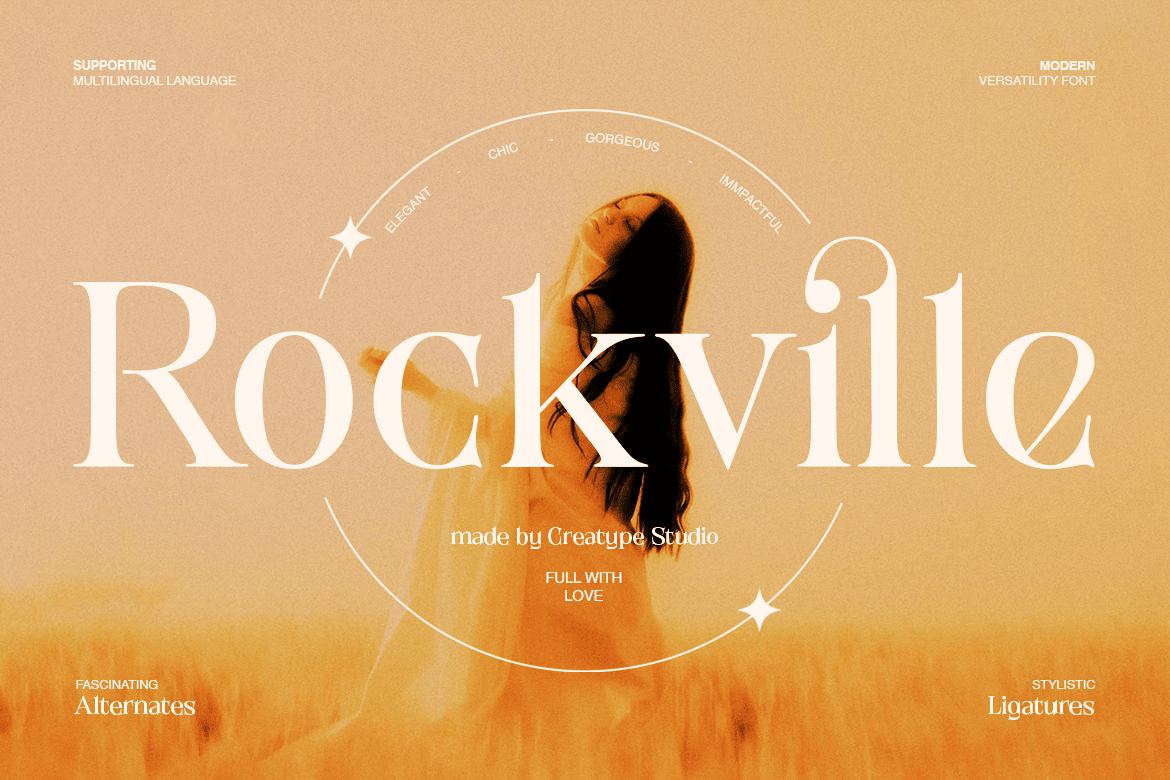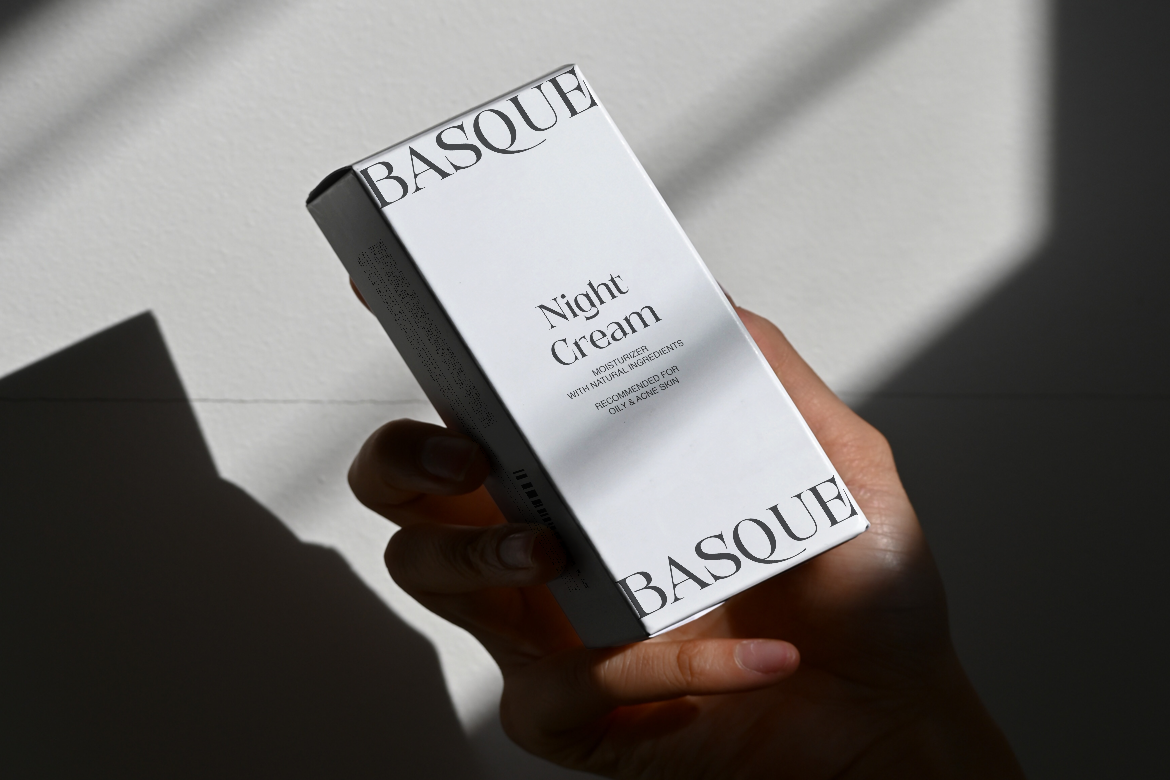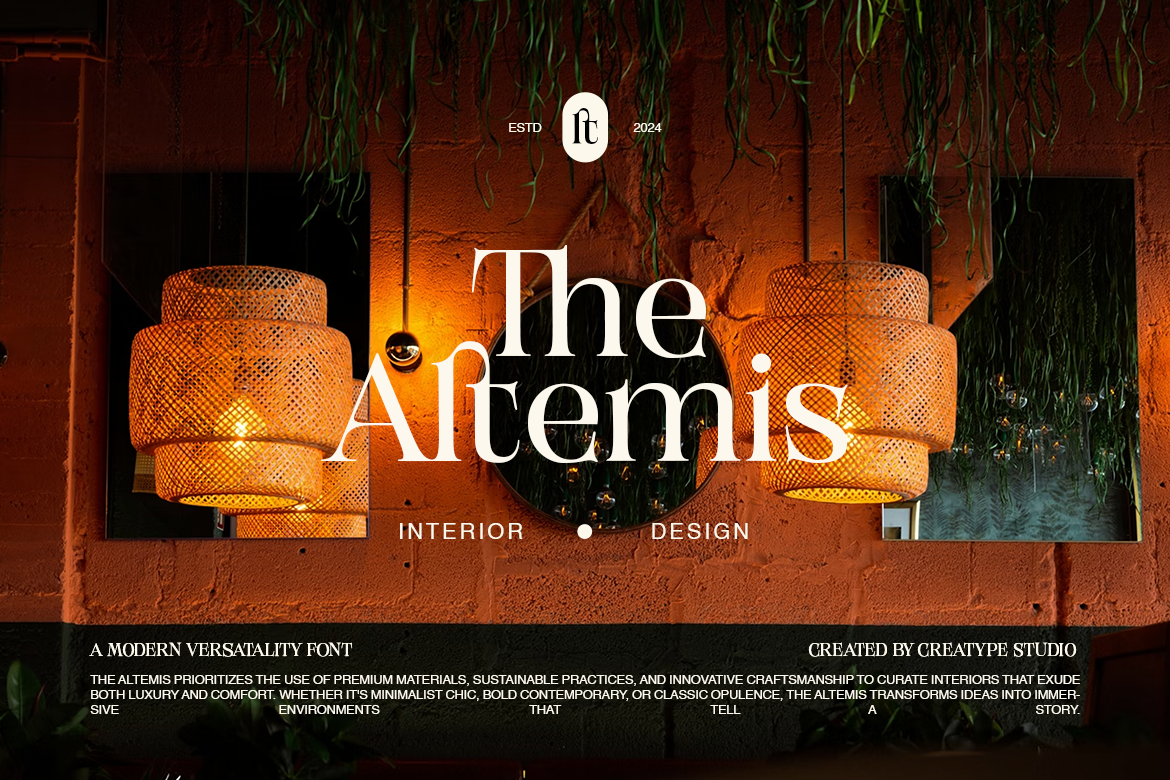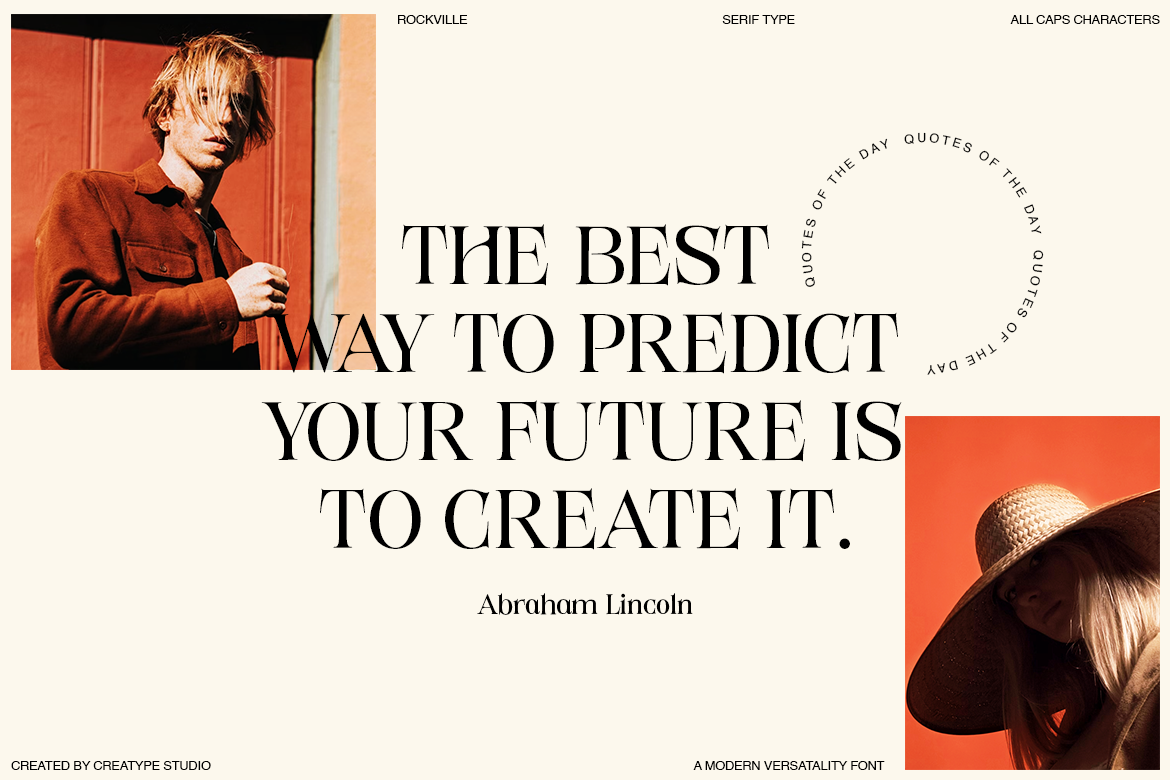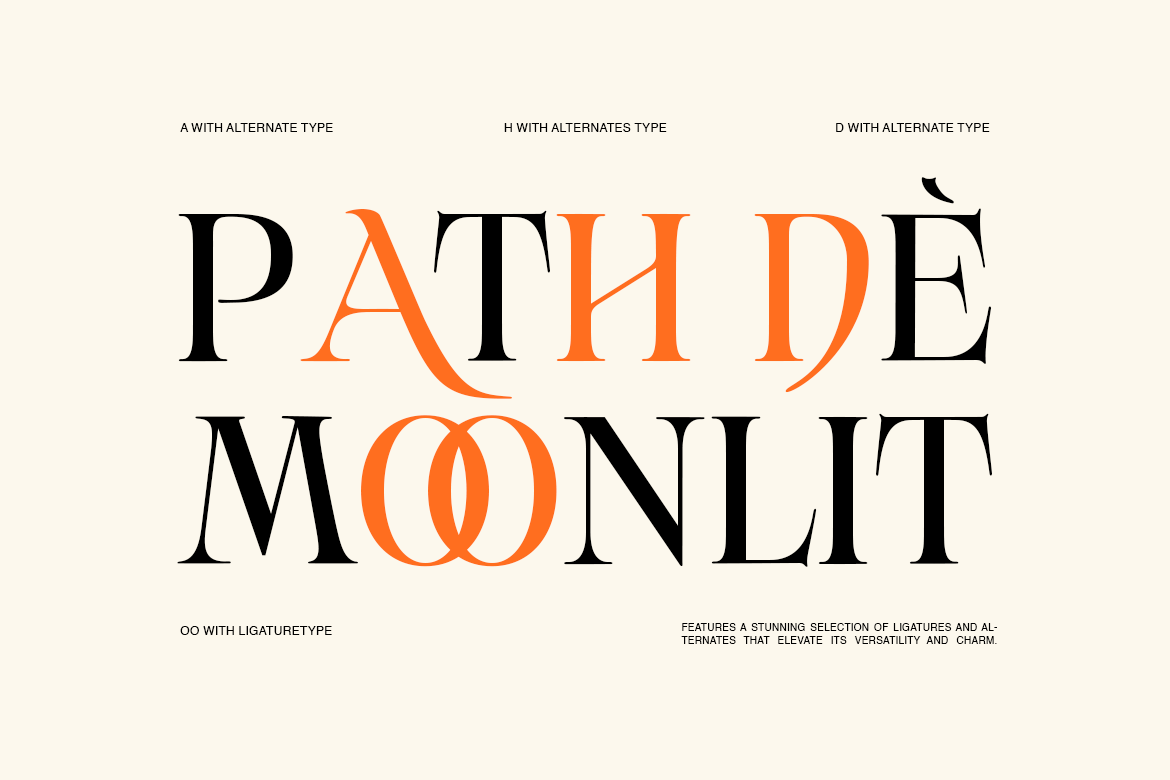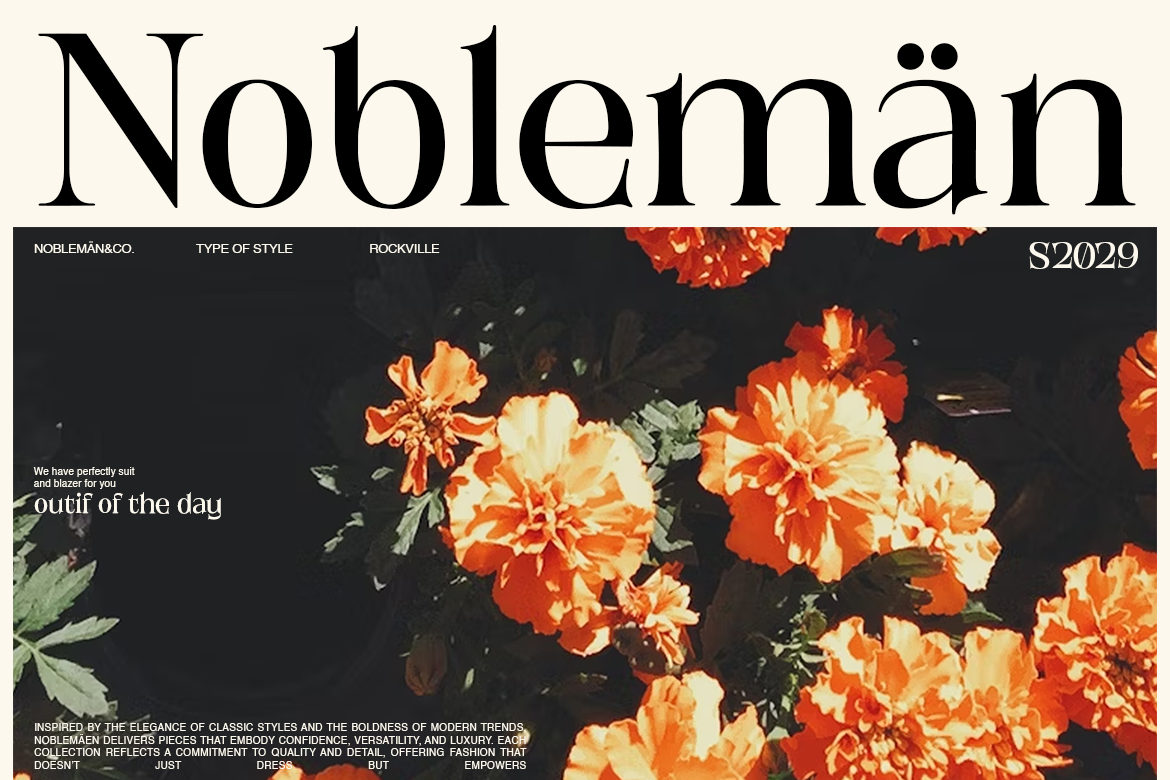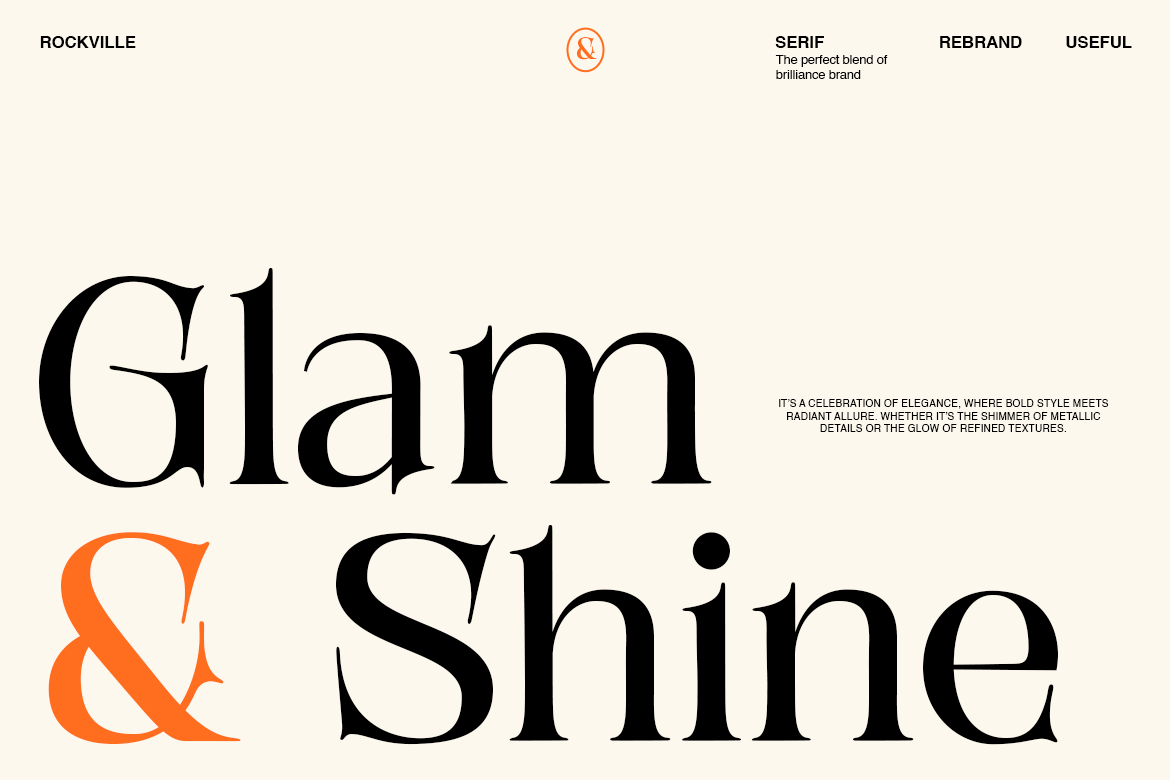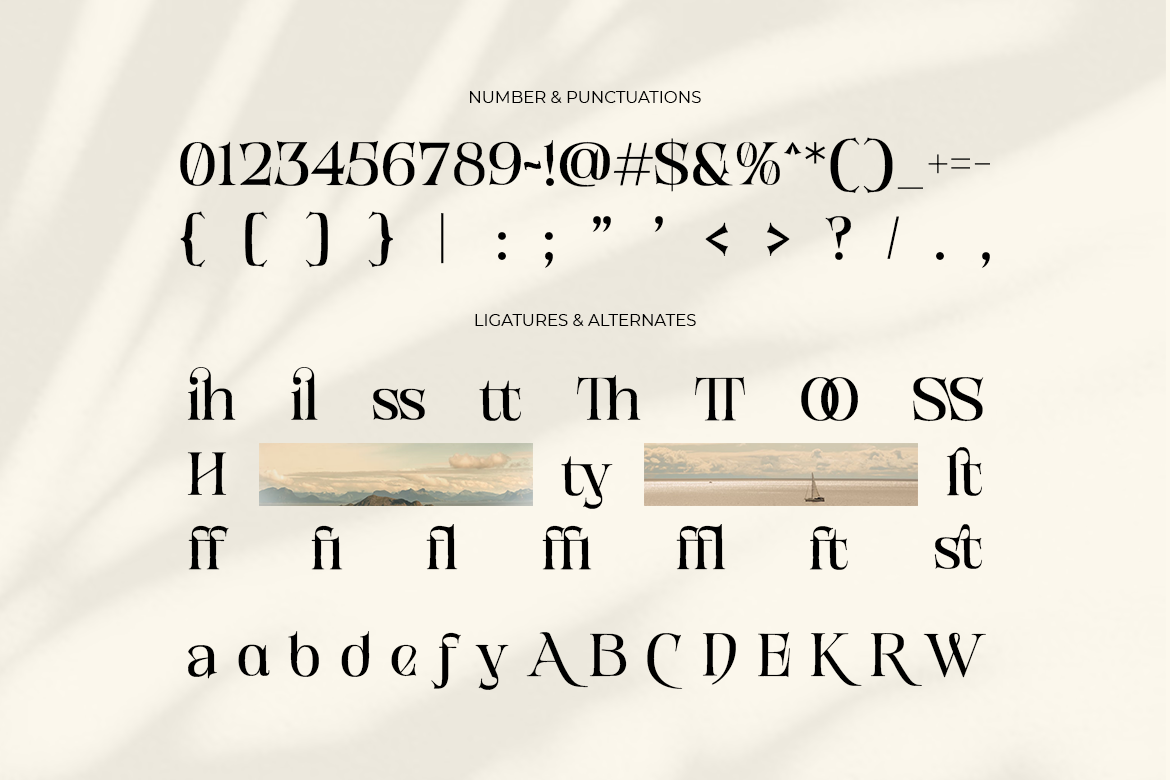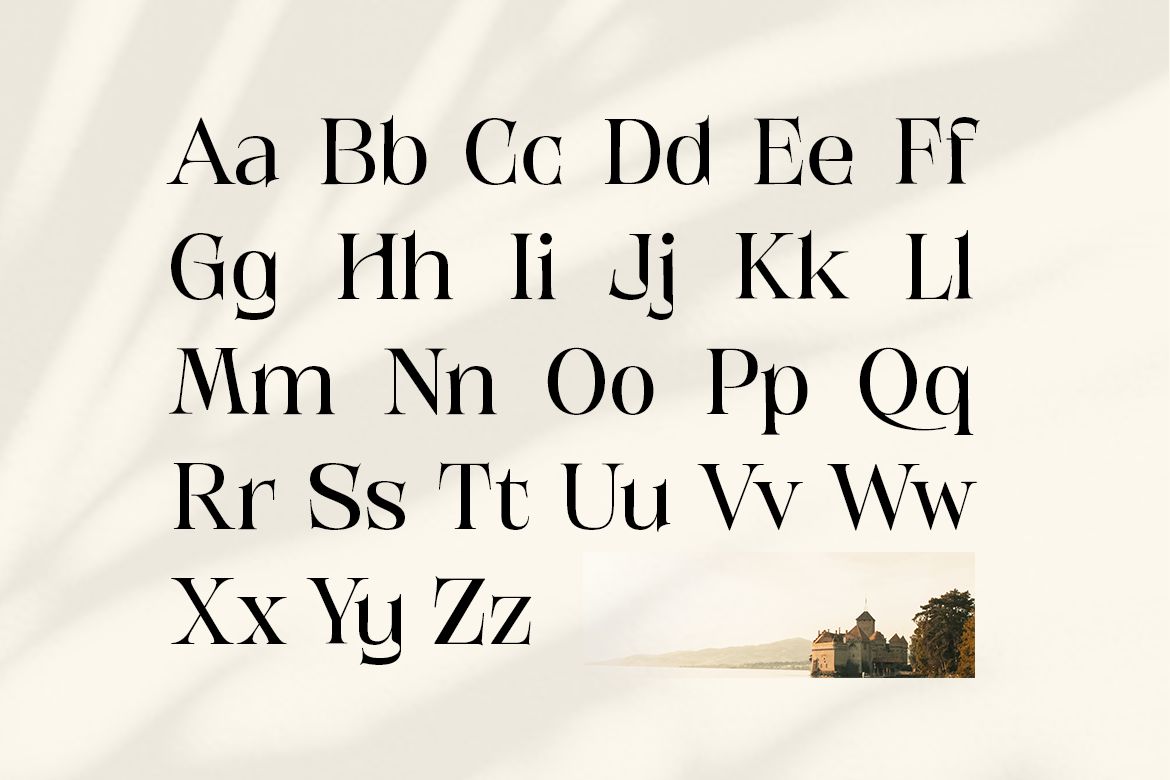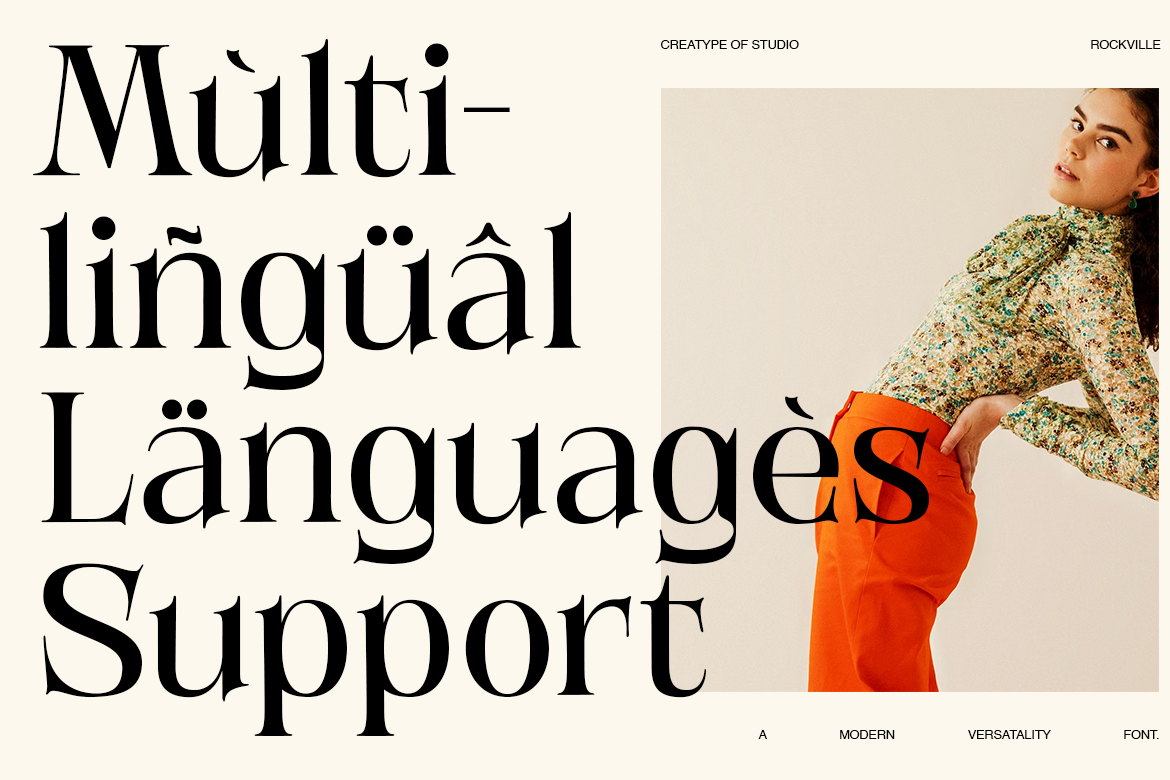
Rockville: A Sophisticated Display Serif for Modern Creatives
Rockville Versatility Serif is a captivating display serif font that merges timeless elegance with a bold, contemporary edge. Designed to make an impact, its sleek, refined details and versatile alternates ensure your projects exude class and creativity. Whether you’re crafting stunning packaging, luxurious branding, or editorial layouts, Rockville offers the perfect blend of modern chic and classic sophistication.
With its intricate ligatures and multilingual support, Rockville is more than just a font—it’s a creative statement. Let its polished forms elevate your designs and leave a lasting impression.
- Ligature, Alternate & Swashes
Rockville Versatility Serif